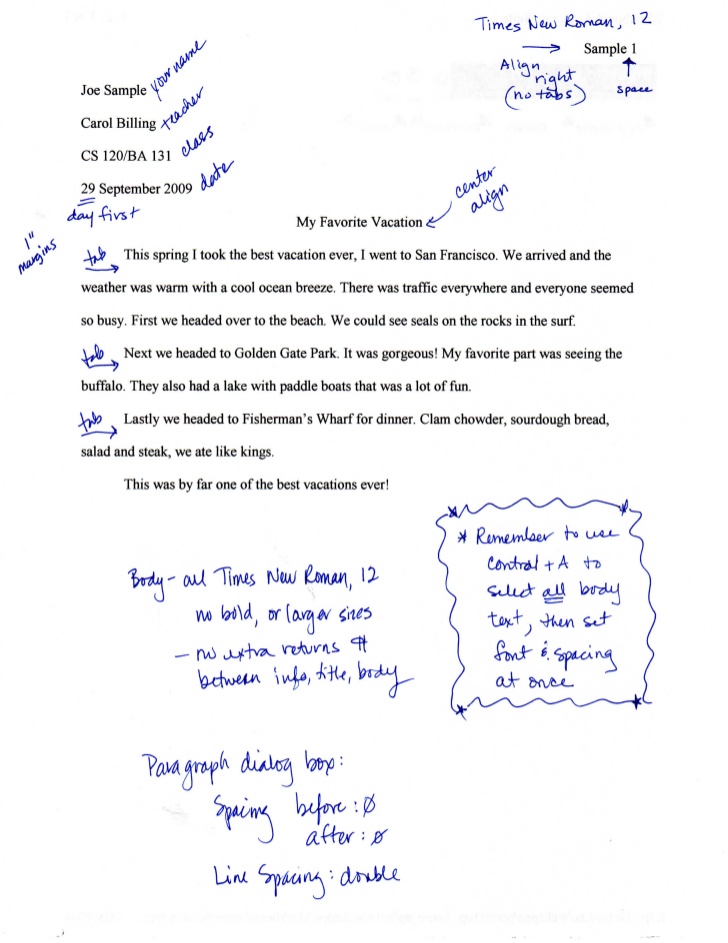
Document format.)but their advice on font selection is less precise: It should be in title case and use the same font type and size as the rest of your paper.
92 Inspiration What Font Type And Size Is Used For A Mla Report With New Ideas, Text in footnotes and figure images may be. In this format, your paper should be 12 pt font size using a legible font style.
The type of academic work dictates the type of font to use for effective delivery. Leave one space after a. This handout provides some basic tips on how to format your title page, abstract, and document in mla style. The most common is mla format, in which case, you use font size 12.
This sample paper shows how the first page of a paper written in mla is formatted. If you want to use font size 6, then select the font size and type 6. Each different type font contains a different personality. The mla standard has no strict rules of how to format section headings but advises to use arabic numerals for numeration of each and to put the name of the heading after space.
For figures, however, use a sans serif font such as arial. Document format.)but their advice on font selection is less precise: The type of academic work dictates the type of font to use for effective delivery. The font size should be 12 point. Mla Format Lessons Tes Teach.
Leave one space after a. Your paper should look like this: Generally use the same typeface and type size throughout the paper. The complete 9th edition mla handbook is available in the reference section on both campuses. Tutorial 24 MLA Format and Works Cited 20160525آ 3 MLA Format and.
Leave one space after a period unless your teacher prefers two. Apa style papers should be written in a font that is legible and widely accessible. If a subheading is needed, number it by a coherent period (1.1, 1.2, 1.3, etc.) and place it directly below the main heading. More specifically, they encourage any font with a distinct italic version of itself. Research Paper With Headings In Mla Format MLA Format Everything You.
The font size should be 12 pt. It is also the most commonly used reference format for english paper writing. For figures, however, use a sans serif font such as arial. Times new roman (12pt.) arial (11pt.) calibri (11pt.) georgia (11pt.) the same font and font size is used throughout the document, including the running head, page numbers, headings, and the reference page. 😂 How to do a paper in mla format. MLA Format Sub. 20190217.
Each different type font contains a different personality. Mla guidelines don't require a specific font, only that it be legible and that the regular and italics type. It’s basically a lazy foolproof typesetting standard which isn’t very good but can be done by everyone. This handout provides some basic tips on how to format your title page, abstract, and document in mla style. MLA Citation Style Overview Writing Explained.
It is a thesis guidance format developed by the american modern language association. Quotation marks should be used when making reference to short works. Mla is the abbreviation of modern language association. Each different type font contains a different personality. FKCC Library MLA Format Tips.
In case the lecturer wants point size 10, use a comfortable font during your writing and editing process then change it to the recommended size before submitting. Mla formatting tips mla style offers guidelines on how papers should be formatted. In choosing an appropriate type font for a report, you must consider the readability of the font and the formality of the project. As the mla handbook notes, “if a quotation extends to more than four lines when run into your text, set if off from the text as a block indented half an inch from the left margin” (76).to determine the length of the quotation in a standard manner, follow the mla’s formatting guidelines regarding font and type size: MLA Format using OpenOffice.
The font size should be 12 pt. The modern language association (mla) provides explicit, specific recommendations for the margins and spacing of academic papers. 7 the paper should be written in size 12 times new roman, arial, or helvetica font. Mla is the abbreviation of modern language association. Formatting a Paper in MLA Style A Visual Guide.
The font size should be 12 point. In older books from the xvi to the xviii century typefaces with small l. I wouldn’t recommend using size 14. What font size should be used when typing a report? How to Format the MLA Essay in MS Word 2010 Choosing Font and Font.
“Always Choose An Easily Readable Typeface (E.g.
Your paper should look like this: In this format, your paper should be 12 pt font size using a legible font style. Thats what font mla handbook requires. It should be in title case and use the same font type and size as the rest of your paper.